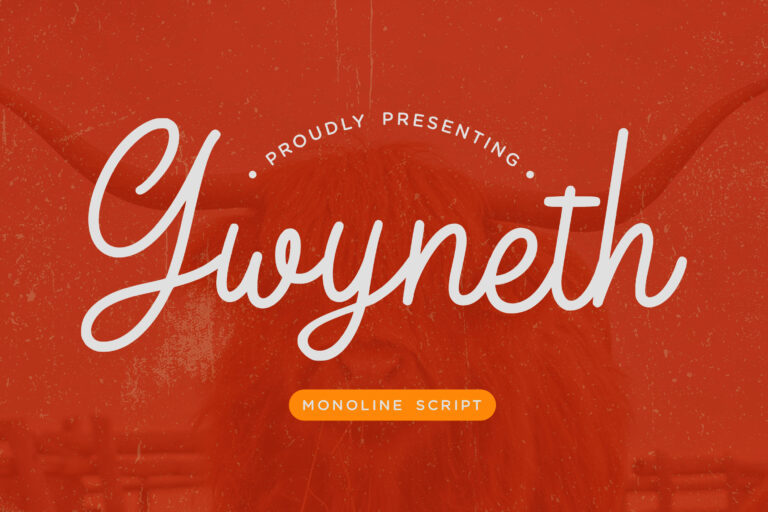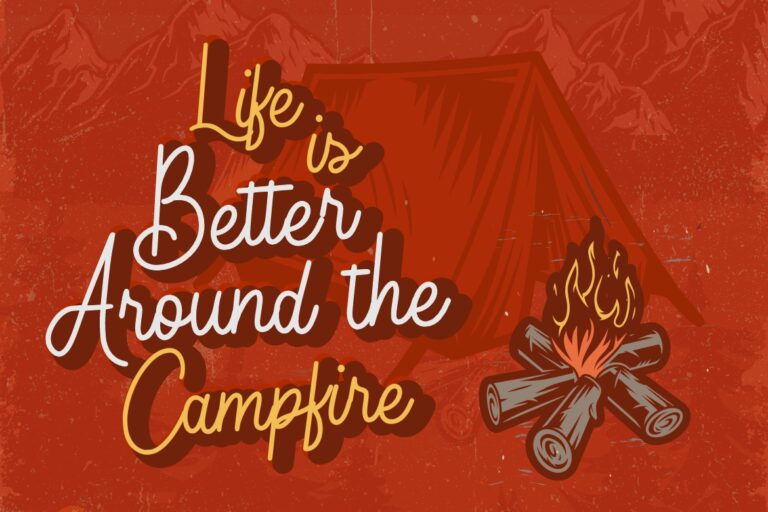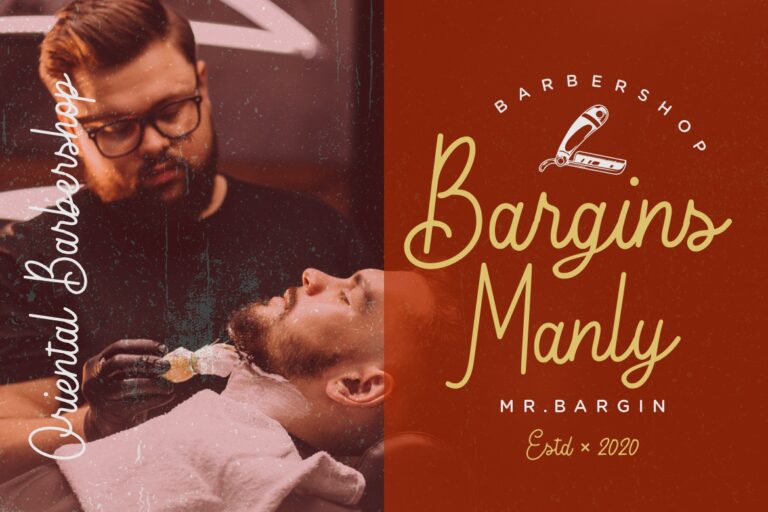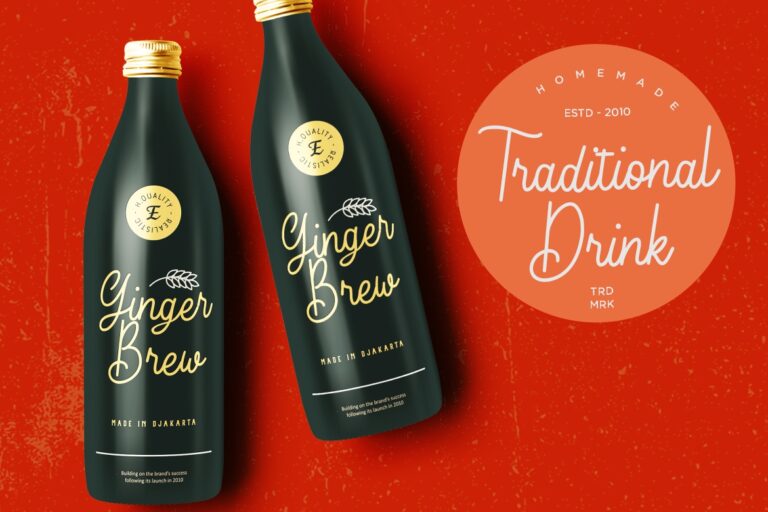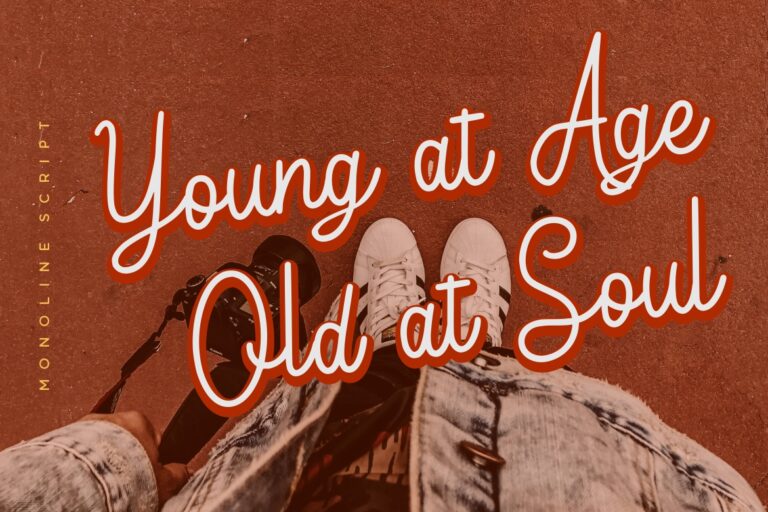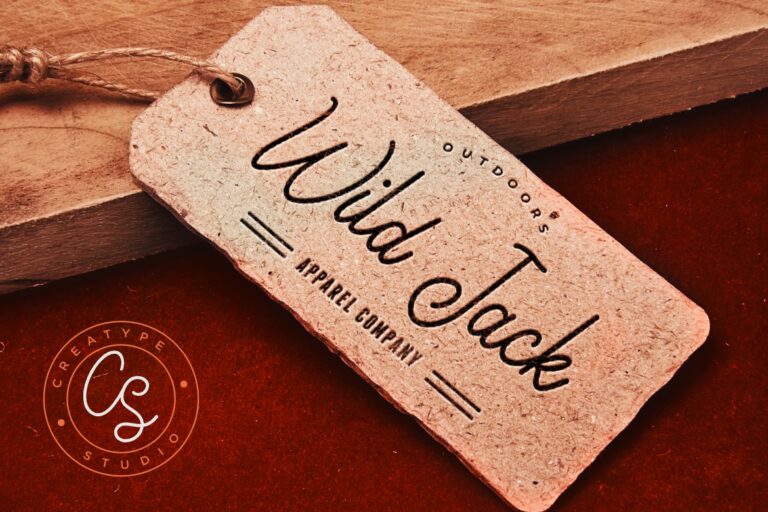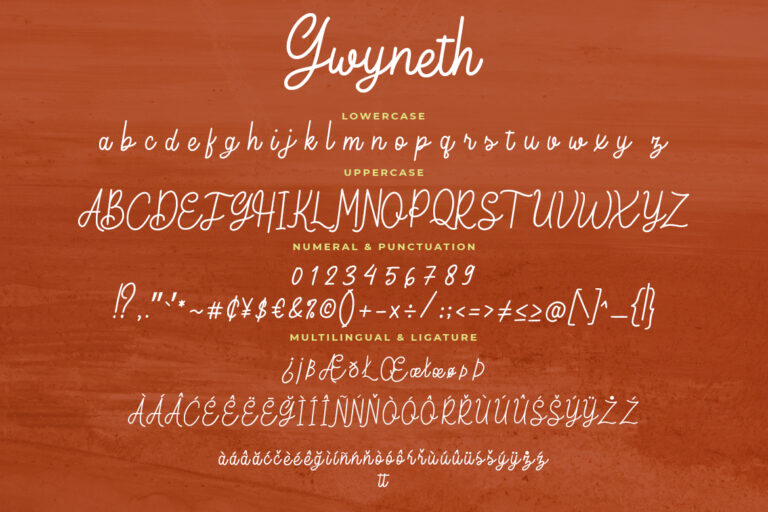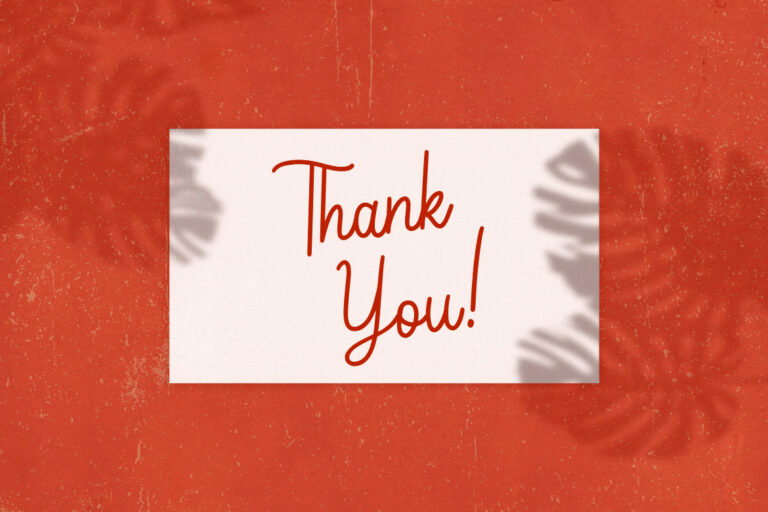
Gwyneth Monoline Script
Gwyneth is monoline script font with natural movement that perfect for your amazing project.
Gwyneth is perfect for branding projects, logo, wedding designs, social media posts, advertisements, product packaging, product designs, label, photography, watermark, invitation, stationery and any projects that need handwriting taste.